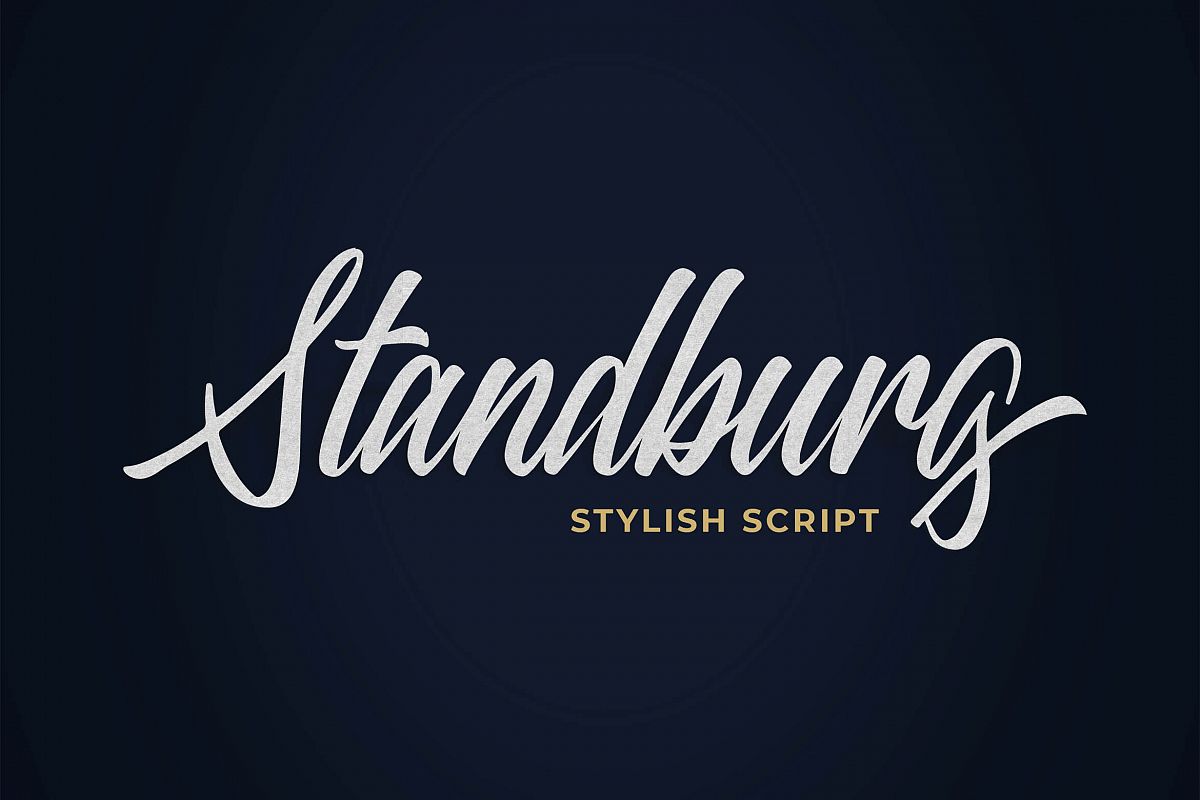
Introducing of our new product the name is Standberg Script Fontt. Standberg inspired by clean brush style this font is a fun theme very good for signature, poster, fashion, wedding, branding etc
MULTILINGUAL ACCENT :ŽžŠŒšŸÀÁÂÃÄÅÆÇÈÉÊËÌÍÎÏÐŁÑÒÓÔÕÖØÙÚÛÜÝßàáâãäåæçèéêëìíîïłñòóôõöøùúûüýÿ
FEATURES :- Uppercase
- PUA Encode
- Opentype